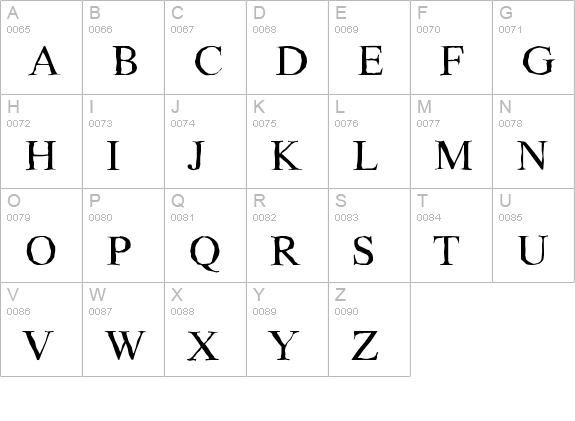
RiccioneAntique-Regular Font Details
RiccioneAntique-Regular is the standard, neutral variant in the RiccioneAntique typeface family \xE2\x80\x94 well suited to general body text, paragraphs, and standard typographic work.
RiccioneAntique-Regular is a charming and elegant font that exudes timeless sophistication. With its vintage-inspired design and classic letterforms, this typeface is perfect for adding a touch of nostalgia to your projects. The delicate serifs and intricate details give RiccioneAntique-Regular a unique and refined look that is sure to captivate and inspire. This exquisite font is a versatile choice for a wide range of design projects, from invitations and stationery to branding and packaging. Its graceful curves and balanced proportions make it a standout choice for creating elegant and memorable designs. Best of all, RiccioneAntique-Regular is available for free download at FontsMarket.com. This means you can easily access and use this beautiful font in your projects without any cost. Don't miss out on the opportunity to enhance your designs with the timeless beauty of RiccioneAntique-Regular. Download it today and let your creativity shine!